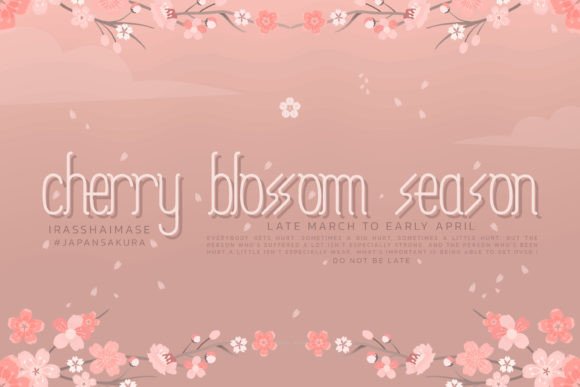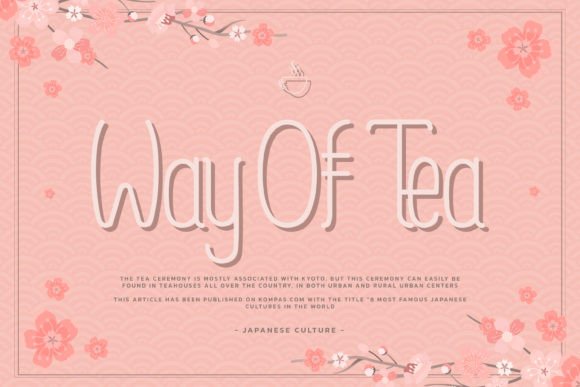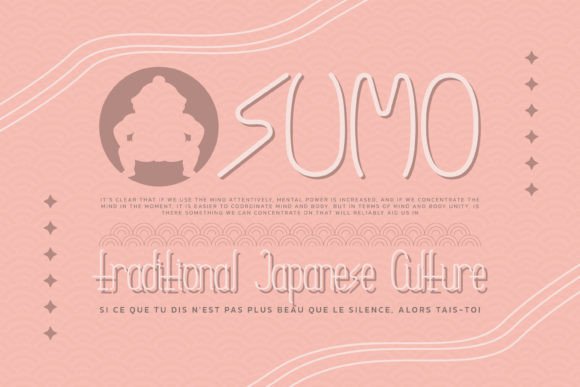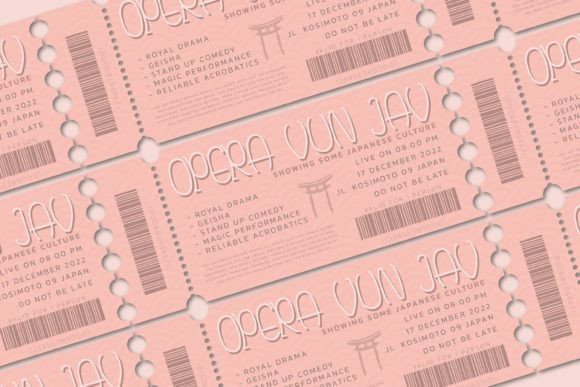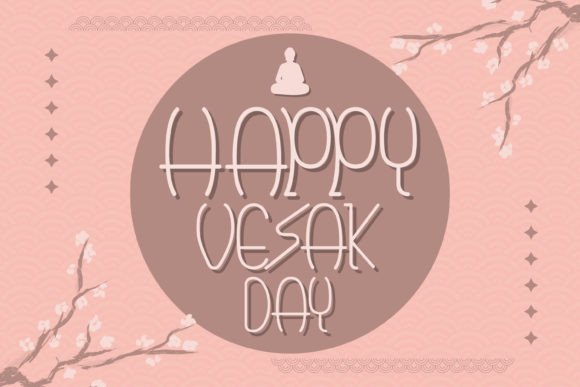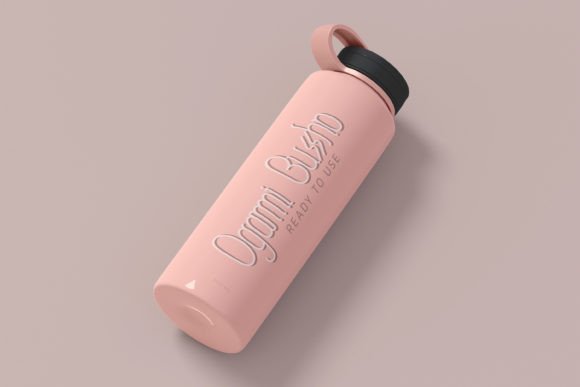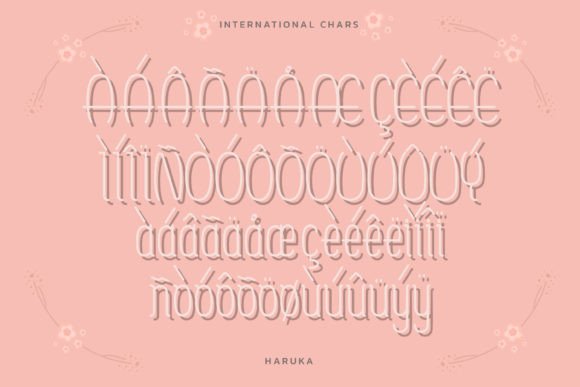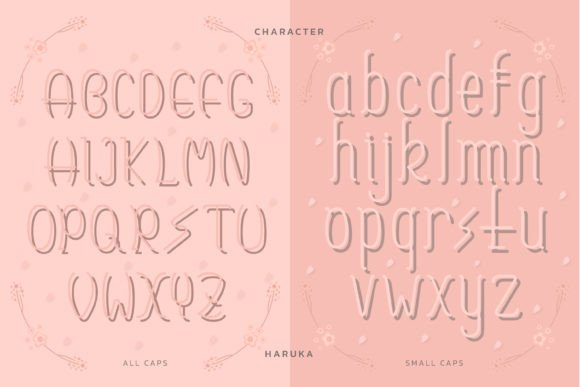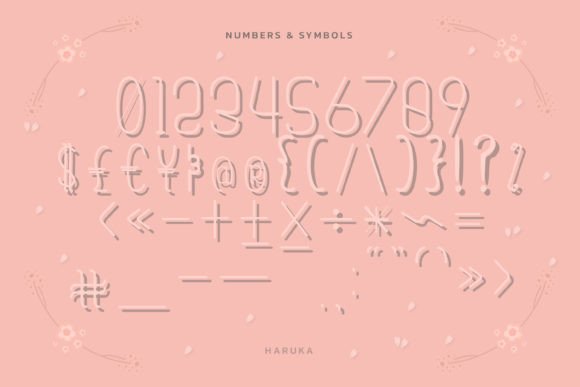
Haruka Font
A Unique Handwritten Font with a Japanese Vibe
The Haruka Font is a unique handwritten typeface that brings a slight Japanese vibe to your designs. With its delicate and expressive strokes, this font adds a touch of elegance and cultural charm to any project. Whether you’re working on Asian-inspired designs, book covers, posters, or branding, the Haruka Font adds an authentic feel, making it perfect for projects that require a personalized and creative touch.
Perfect for Asian-Inspired Designs
If you’re working on Asian-inspired designs, the Haruka Font is an ideal choice. Its unique handwritten style, combined with a subtle Japanese vibe, gives your design a sense of tradition and culture. Whether you’re designing Chinese, Japanese, or Korean-themed content, this font brings the perfect balance of modern style and heritage influence, adding depth and authenticity to your project.
Great for Book Covers and Editorial Design
For book covers and editorial design, the Haruka Font offers an elegant and distinctive style that makes your text stand out. Whether you’re designing covers for Asian literature, novels, or magazines, this font’s unique aesthetic ensures your project has a memorable and engaging look. Its delicate handwritten strokes work beautifully for headlines, subtitles, or any area where you need a font that combines sophistication with creative flair.
Ideal for Business Cards and Branding
The Haruka Font is also perfect for creating business cards and branding materials. Its unique handwritten design makes it an excellent choice for businesses looking to create a cultural, creative identity. Whether you’re designing for beauty brands, fashion lines, or Japanese restaurants, this font offers a perfect balance of elegance and authenticity, ensuring that your branding stands out with personality and style.
Perfect for Fashion Magazines and Labels
For fashion magazines and product labels, the Haruka Font adds a sense of luxury and refinement to your designs. Its handwritten strokes bring creative expression to your typography, making it ideal for editorial or advertisement designs that need a touch of sophistication. Whether you’re creating editorial layouts, fashion campaigns, or beauty product labels, this font helps your project stand out with a bold, yet refined look.
Versatile for Multiple Design Applications
The Haruka Font is highly versatile, making it suitable for a wide range of design applications. Whether you’re working on flyers, posters, logos, labels, advertisements, or web design, this font enhances your work with a unique touch of creativity. Its combination of modern and cultural influences ensures that it adapts beautifully to both traditional and contemporary designs, making it perfect for both digital and print media.
Elegant, Readable, and Stylish
Despite its artistic and handwritten design, the Haruka Font remains elegant and easy to read. Its smooth, flowing strokes ensure that your text remains legible, even when used for longer passages or smaller sizes. Whether you’re designing headlines, captions, or body text, this font offers the perfect balance of style and clarity, making it suitable for a variety of design projects.
Add Unique Style to Your Designs with Haruka Font
If you’re looking for a unique, creative, and elegant handwritten font to enhance your designs, the Haruka Font is the perfect choice. Whether you’re working on Asian-inspired designs, branding, magazines, or product labels, this font brings a distinctive touch to your work. Let the Haruka Font add a cultural, artistic flair to your projects and create memorable, impactful designs that leave a lasting impression.